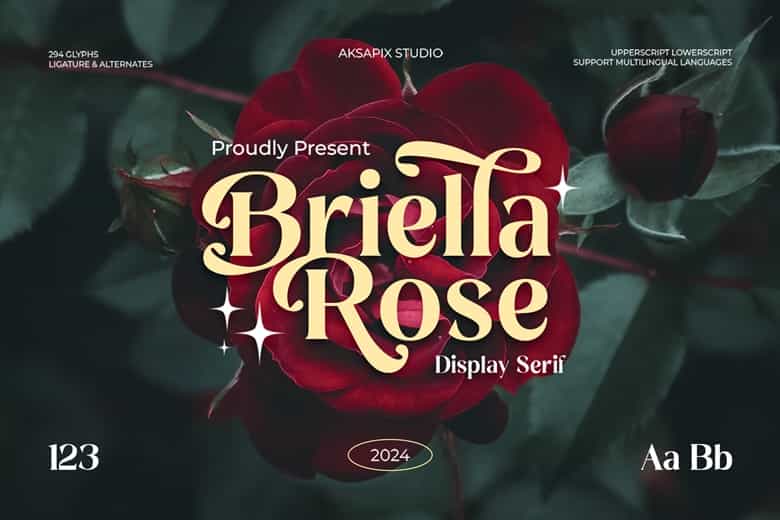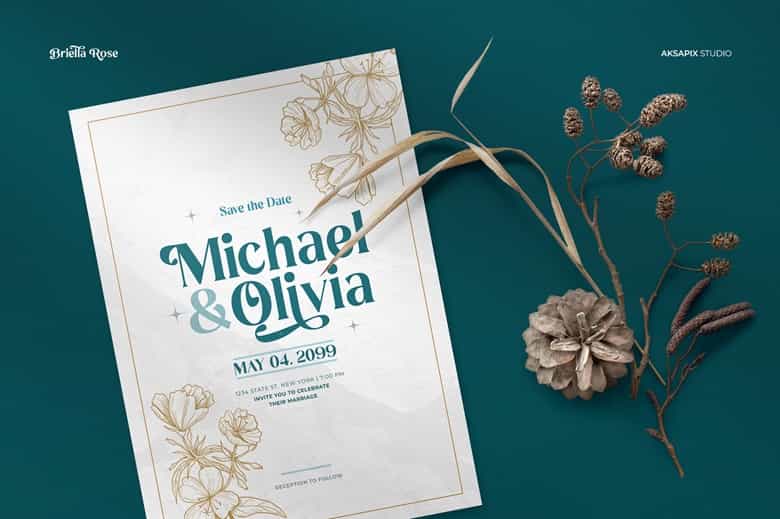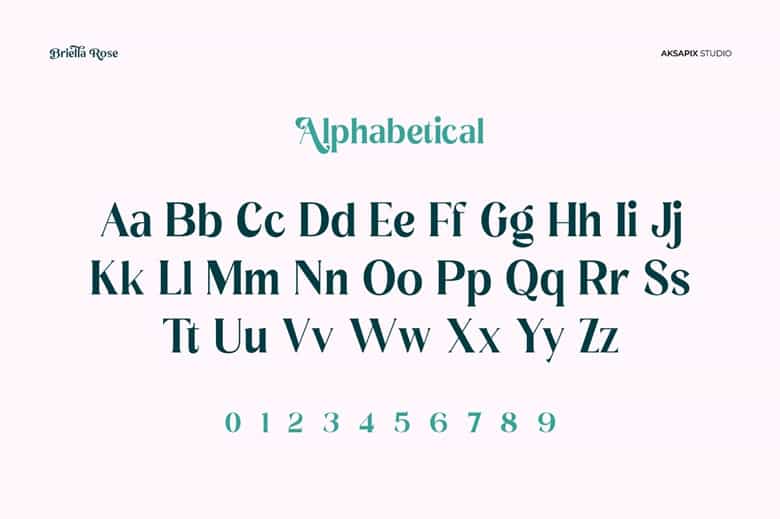
Briella Rose is here to take your design to the next level and bring elegance and grace to typography. Briella Rose has smooth serifs and lovely arcs that give a classic look to any project that uses this font.